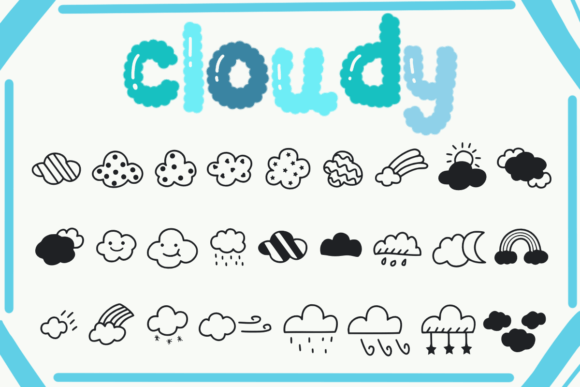
Unlocking Creativity with the Cloudy Font
Have you ever sat down with a blank page, a spark of an idea, and a flurry of imagination, only to be held back by the limitations of your font options? We’ve all been there. The blank page stares back, taunting us to bring our vision to life. But what if you had the perfect tool to help you unlock your creativity and bring your ideas to the forefront?
Enter the Cloudy Font, a delightful hand-drawn dingbats font that’s as cute as it is useful. Perfect for plans, crafting, digital design, presentations, greeting card making, and more, this font is the missing piece you’ve been searching for. With the Cloudy Font, you can add a touch of whimsy and personality to your designs, making them truly stand out from the crowd.
Cloudy Font Key Features
- Size: Cloudy Font comes in 4 font sizes: Extra Light, Light, Regular, and Bold, allowing users to choose the perfect weight for their design.
- Resolution: Cloudy Font is designed for high-resolution displays, with a minimum resolution requirement of 72 dpi.
- Unique Characteristics: Cloudy Font features a unique, weather-inspired design with subtle texture and gradient effects, giving it a distinctive and eye-catching appearance.
- Language Support: Cloudy Font supports a wide range of languages, including Latin, Cyrillic, and Greek alphabets, making it suitable for international design projects.
- Font Size: The font size ranges from 10pt to 100pt, allowing users to create headlines, titles, and body text with ease.
Cloudy Font Review
Overall, I think Cloudy Font is a great addition to any digital project. It has a very unique and subtle personality that can add a lot of character to your design. ✨
- Unique Character: The font has a distinctiveness that sets it apart from other fonts.
- Legibility: Despite its quirky nature, the font is still very readable, even at smaller sizes.
- Flexibility: Cloudy Font works well in a variety of contexts, from body text to headings.
Limits:
- Limited Font Sizes: The font starts to become less readable at font sizes below 12px.
- Lack of Bold/Italic Options: The font only comes in a standard weight, which can limit its use in certain contexts.
- Not Ideal for Large Blocks of Text: Due to its unique character, the font can become overwhelming when used in large blocks of text.
Overall, I would recommend Cloudy Font for projects where you want to add a touch of personality and whimsy. Just be mindful of its limitations and use it judiciously.
Cloudy Font is perfect for:
- Creating a whimsical and dreamy atmosphere in your designs.
- Adding a touch of nostalgia to your branding or marketing materials.
- Designing children’s books, educational materials, or other creative projects.